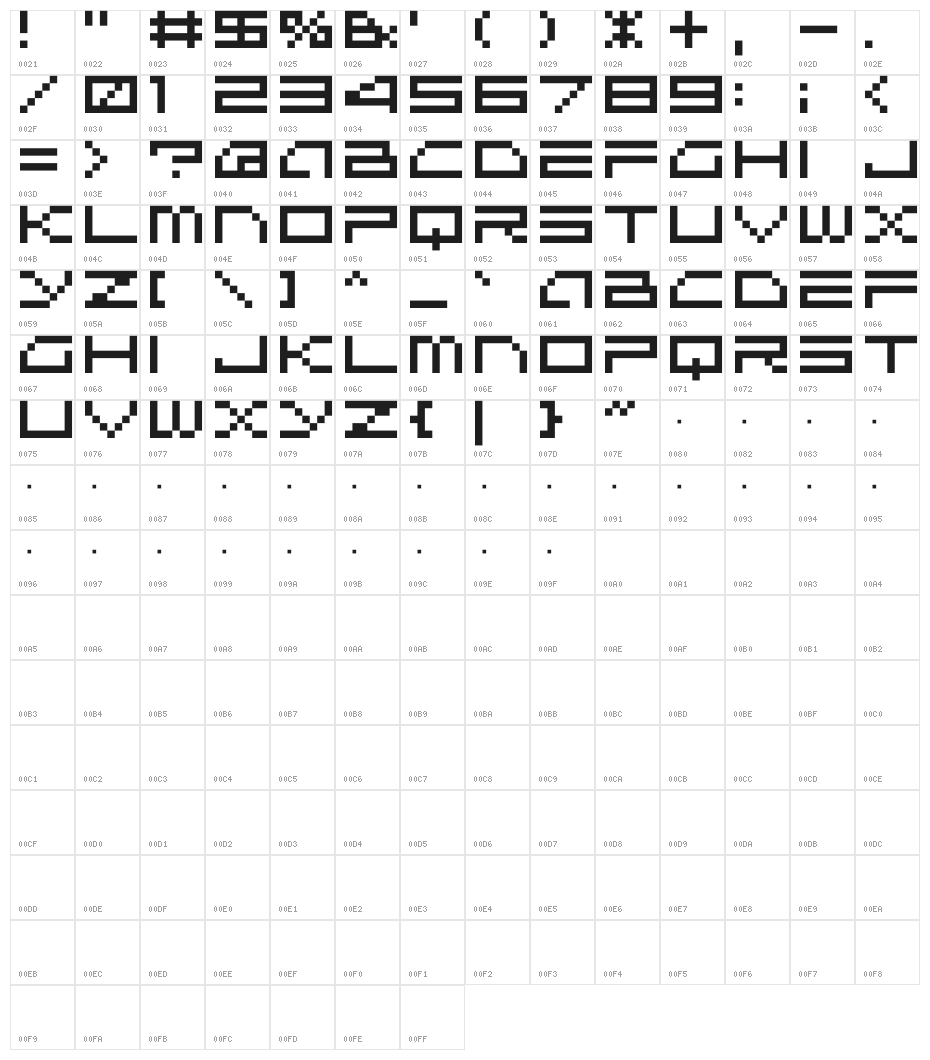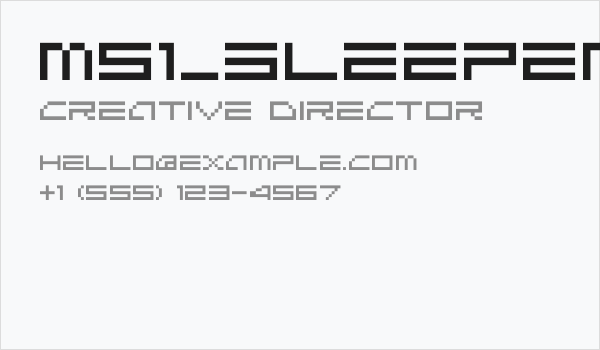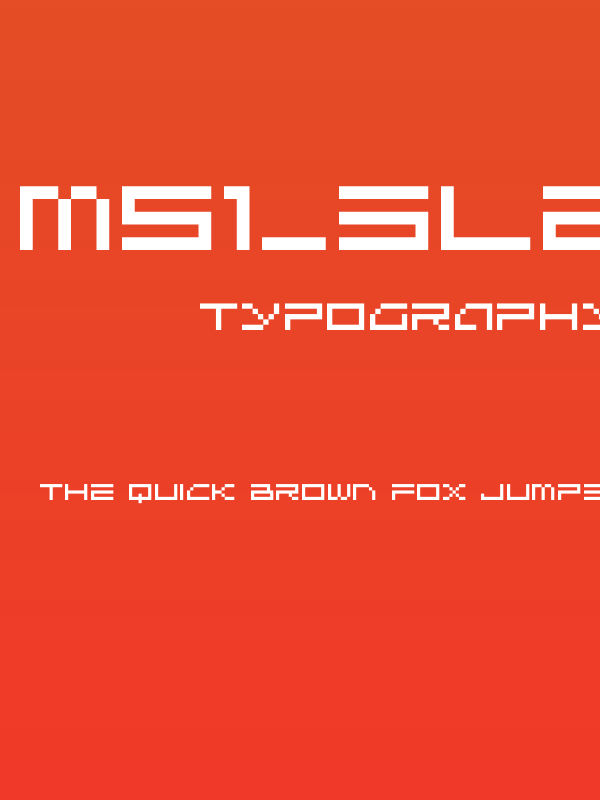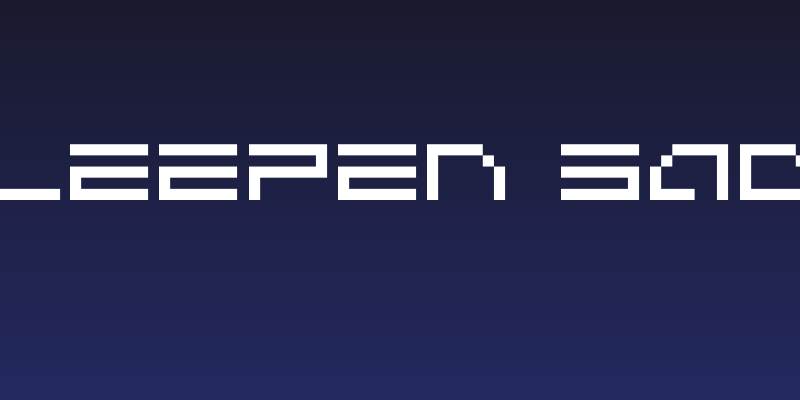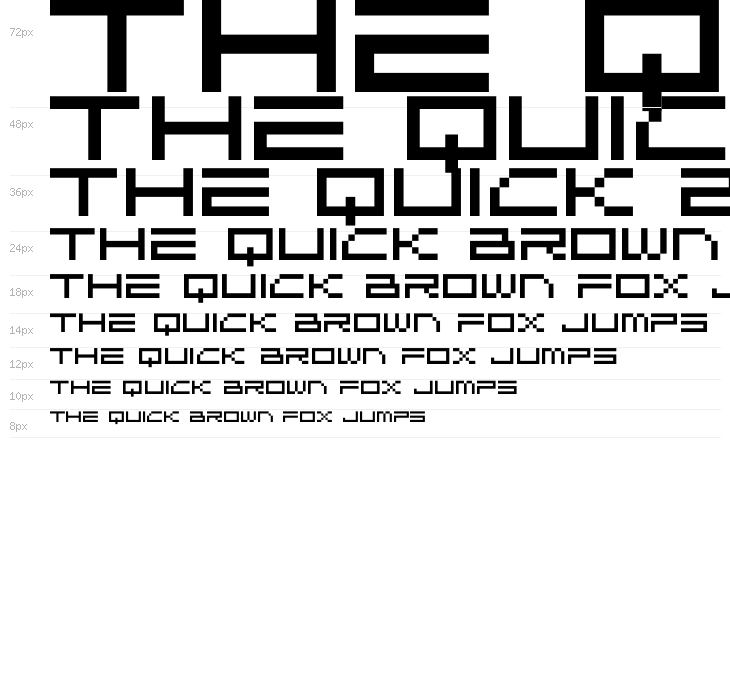
M51_SLEEPEN SADNESS Font
M51_SLEEPEN SADNESS Description
This font features a distinct pixelated style, reminiscent of early digital displays and retro video games. Each character is constructed with a grid-like precision, giving it a blocky and geometric appearance. The uppercase and lowercase letters maintain a consistent height, contributing to a uniform look. The numbers and special characters follow the same design principles, ensuring a cohesive aesthetic throughout. This font's unique style is both nostalgic and modern, making it suitable for projects that aim to evoke a sense of digital nostalgia or futuristic themes.
| Overall Style | Retro, Digital |
| Use Case | Logos, Posters, Digital Art |
| Proposed Projects | Ideal for video game design, tech-themed posters, digital art projects, and retro-style branding. |